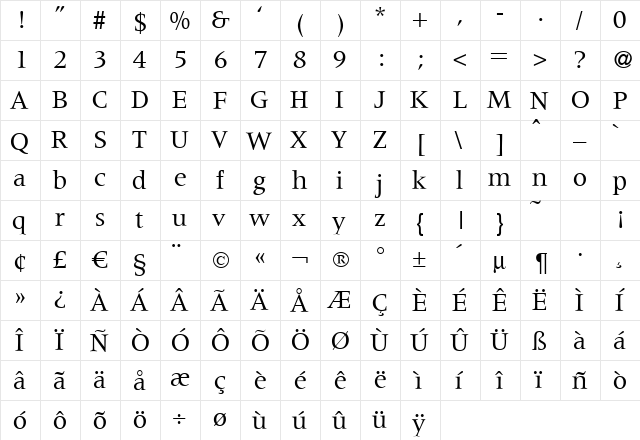
M690-Roman Regular
Design Context for M690-Roman Typeface
M690-Roman is a composed and adaptable typeface that performs quietly and consistently across a wide range of design contexts.